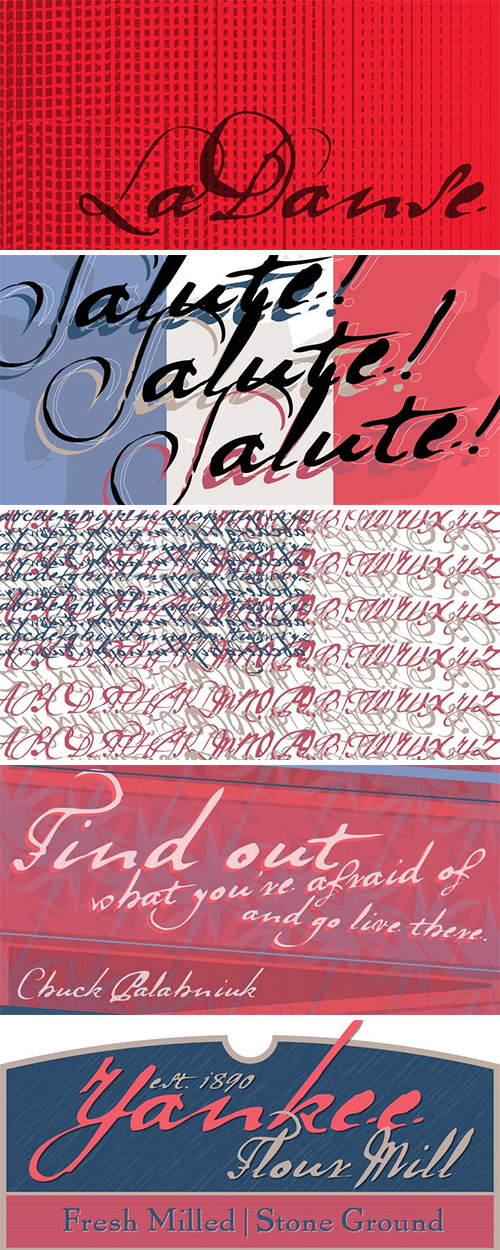
- Fontana Type Foundry in Hungary has developed an archaic identity largely based upon lettering from a rare Type Specimen of the Jesuit Academy Press of Tyrnavia (1773). They have developed many baroque style typefaces of Hungarian derivation. Gábor wanted an authentic handwriting revival from that age as well. La Danse is a ‘facsimile’ font, based on the manuscript of an inventory found in the original Tyrnavia specimen. The manuscript was written in an archaic Latin alphabet therefore some modern interpretations have been inserted.